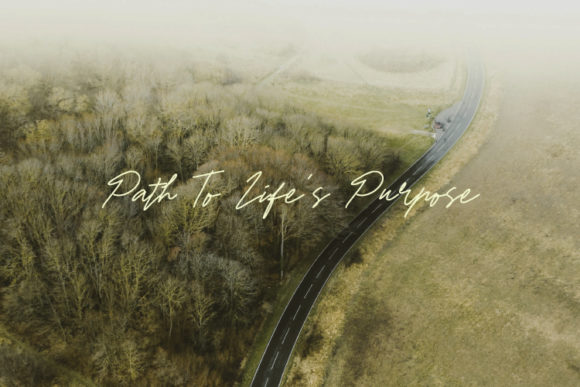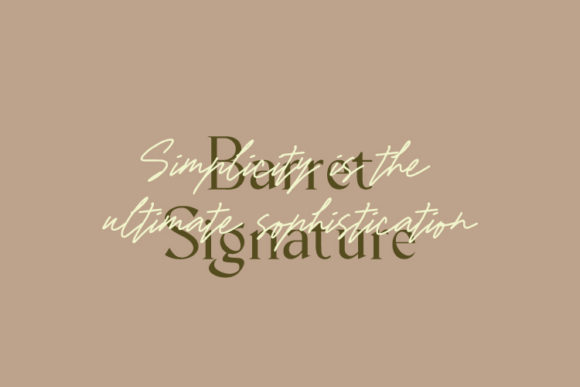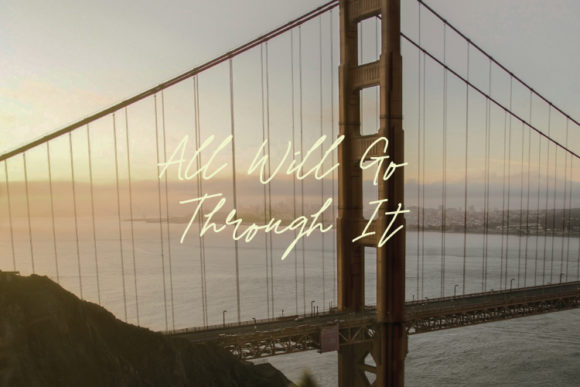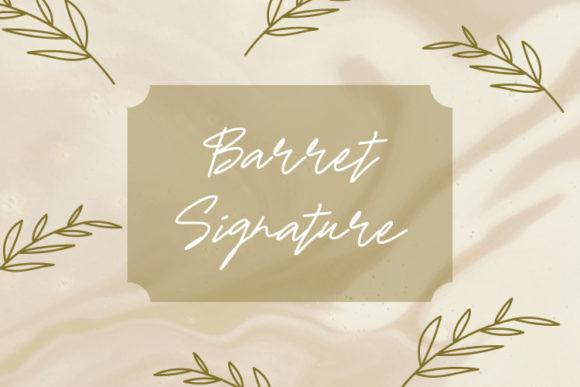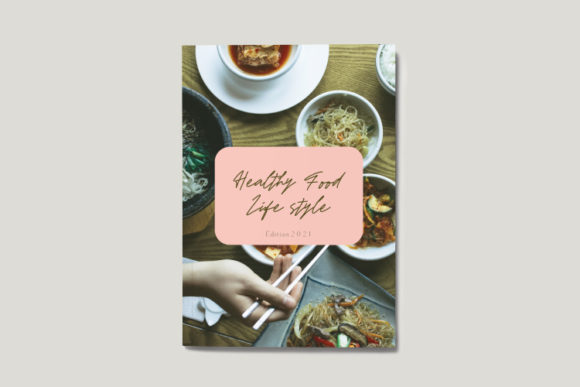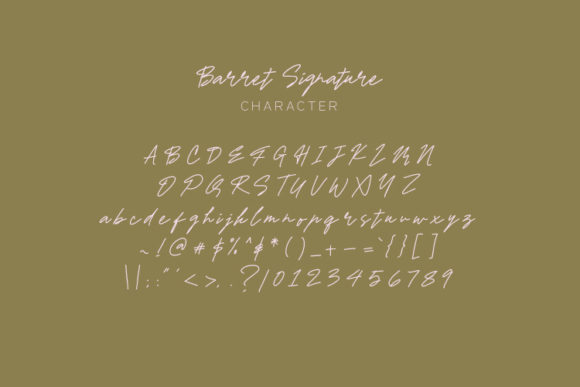
Introducing Barret Signature Font: The Ultimate Handwritten Font for Creative Projects
Are you a designer or crafter looking for a fresh and relaxed handwritten font to elevate your creative projects? Look no further than Barret Signature Font! This versatile font is perfect for a wide range of applications, from poster designs and book covers to merchandise, fashion campaigns, newsletters, advertising, magazines, greeting cards, album covers, and much more.
What is Barret Signature Font?
Barret Signature Font is a beautifully crafted handwritten font that exudes a sense of casual elegance. Its unique and fluid strokes make it perfect for adding a personal touch to your designs. Whether you’re looking to create a bold statement or a subtle impression, Barret Signature Font is the perfect choice.
Key Features of Barret Signature Font
• Fresh and Relaxed Style: Barret Signature Font boasts a fresh and relaxed style that is perfect for designers and crafters who want to add a touch of personality to their work.
• Handwritten Elegance: The font’s handwritten elegance makes it perfect for creating unique and eye-catching designs.
• Versatile: Barret Signature Font is incredibly versatile and can be used for a wide range of projects, from posters and book covers to merchandise and greeting cards.
• Easily Readable: The font is easily readable, making it perfect for body text and captions.
Use Cases for Barret Signature Font
Barret Signature Font is perfect for a wide range of creative projects, including:
• Poster Designs: Create eye-catching posters for events, promotions, or advertising campaigns.
• Book Covers: Add a touch of elegance to your book covers and make them stand out.
• Merchandise: Create unique and stylish merchandise, such as t-shirts, mugs, and tote bags.
• Fashion Campaigns: Use Barret Signature Font to create stylish and sophisticated fashion campaigns.
• Newsletters: Add a personal touch to your newsletters and make them more engaging.
• Advertising: Create effective and eye-catching advertisements with Barret Signature Font.
• Magazines: Use the font for magazine titles, headings, and body text.
• Greeting Cards: Create beautiful and personalized greeting cards for special occasions.
• Album Covers: Add a touch of elegance to your album covers and make them stand out.
Why Choose Barret Signature Font?
There are many reasons why Barret Signature Font is the perfect choice for designers and crafters. Here are a few:
• Unique Style: Barret Signature Font has a unique and distinctive style that will set your designs apart.
• Easily Customizable: The font is easily customizable, allowing you to adjust the size, color, and style to suit your needs.
• High-Quality: Barret Signature Font is a high-quality font that is designed to produce crisp and clear results.
In conclusion, Barret Signature Font is a fresh and relaxed handwritten font that is perfect for designers and crafters who want to add a touch of personality to their creative projects. Its unique style, versatility, and ease of use make it an excellent choice for a wide range of applications. Whether you’re creating posters, book covers, merchandise, or greeting cards, Barret Signature Font is the perfect choice. So why wait? Download Barret Signature Font today and take your designs to the next level!